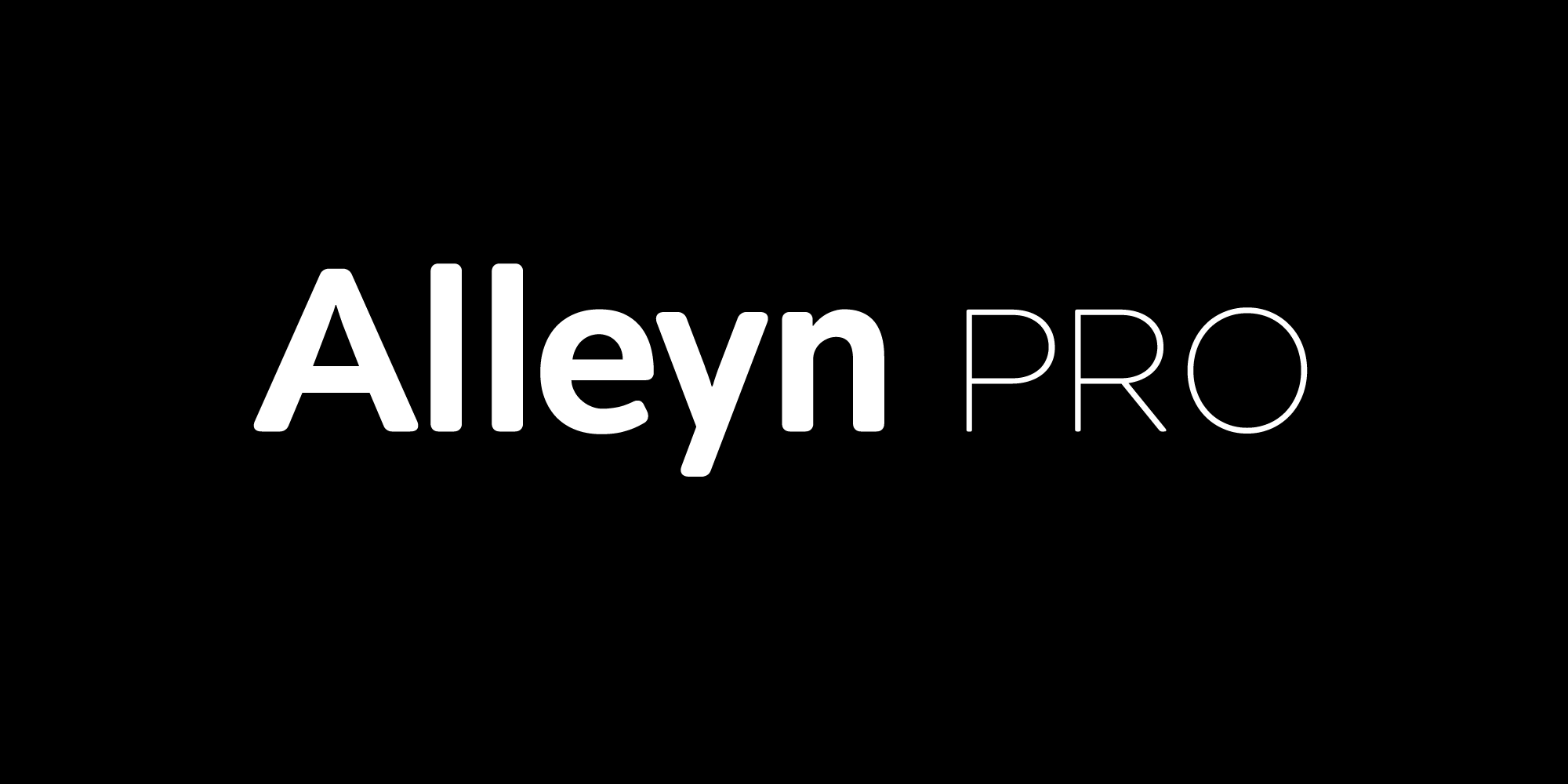
For designers seeking a clean, modern sans-serif that combines versatility with professionalism, Alleyn Pro Font Free Download is an excellent choice. Its sleek and straightforward design ensures clarity and readability across a wide range of projects, from corporate branding to editorial layouts and digital interfaces.
Alleyn Pro Font Free Download boasts well-proportioned letterforms and balanced spacing, making your text look polished and approachable. Whether you're designing websites, presentations, or marketing materials, this font adds a contemporary edge without compromising on legibility.
This font’s clean aesthetic works well in both print and digital environments, perfect for businesses, startups, and creative agencies aiming for a professional and modern brand identity.
In summary, Alleyn Pro Font Free Download offers a crisp, elegant sans-serif option that elevates your projects effortlessly. Try it free for testing, and when ready, secure the license for commercial use.